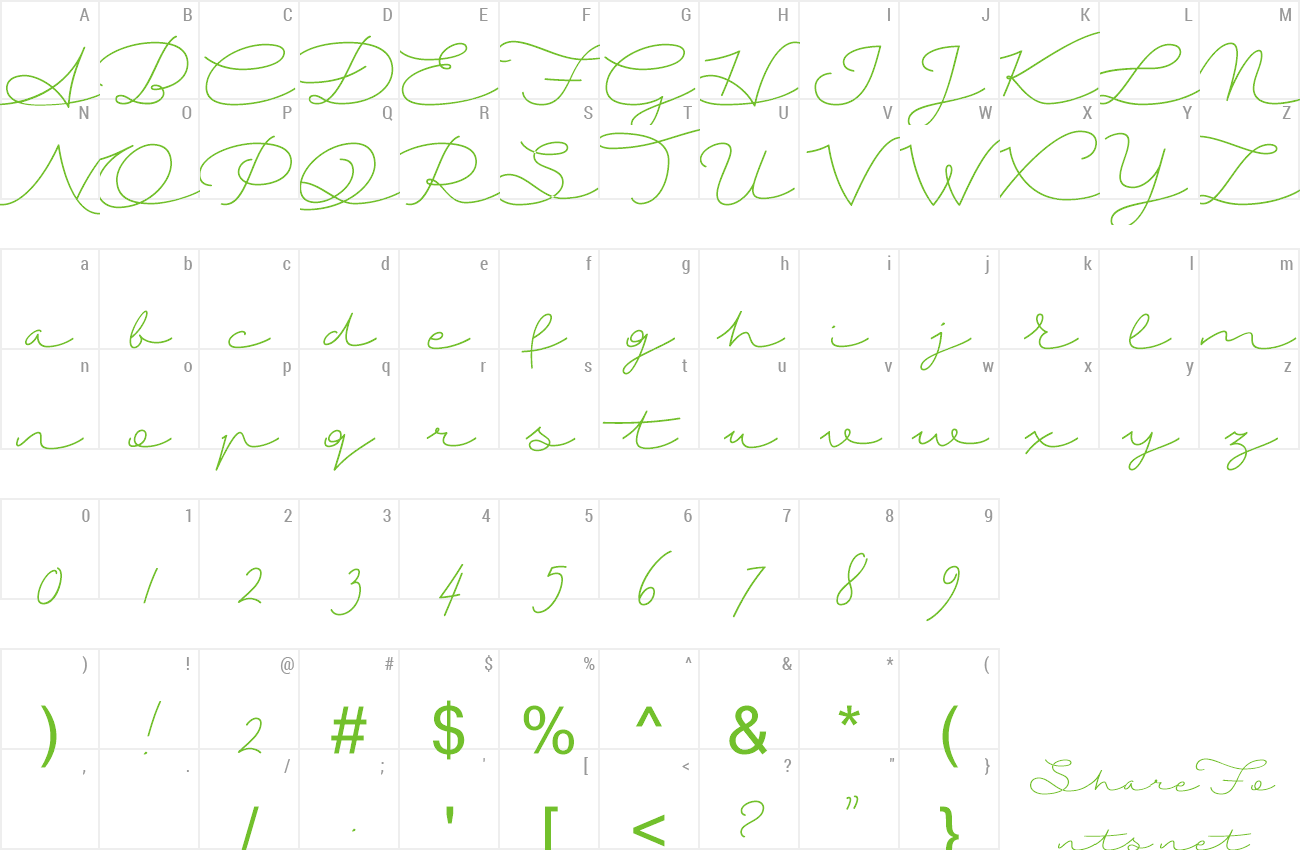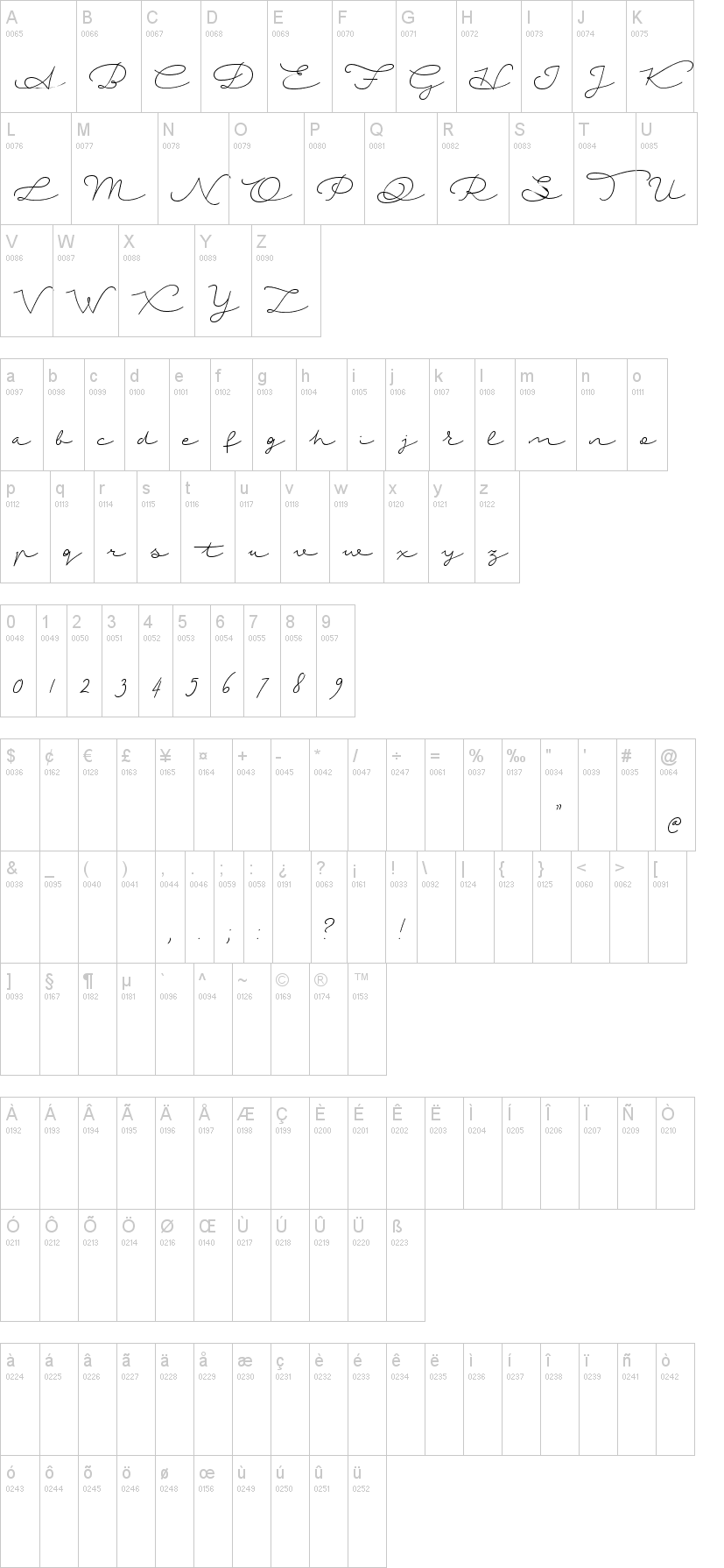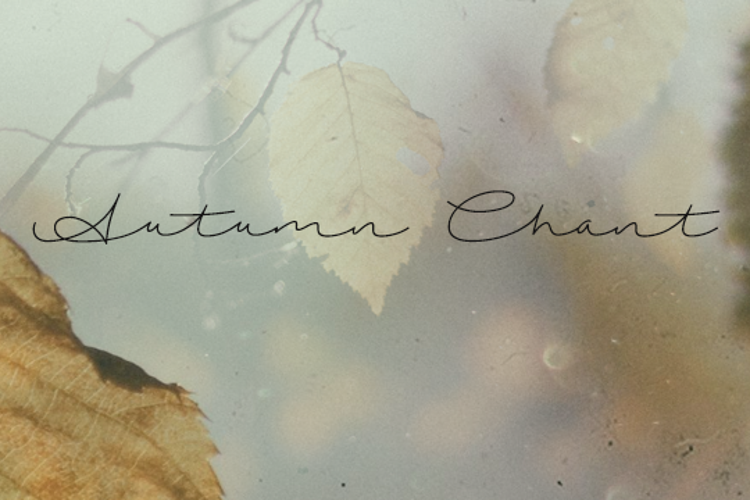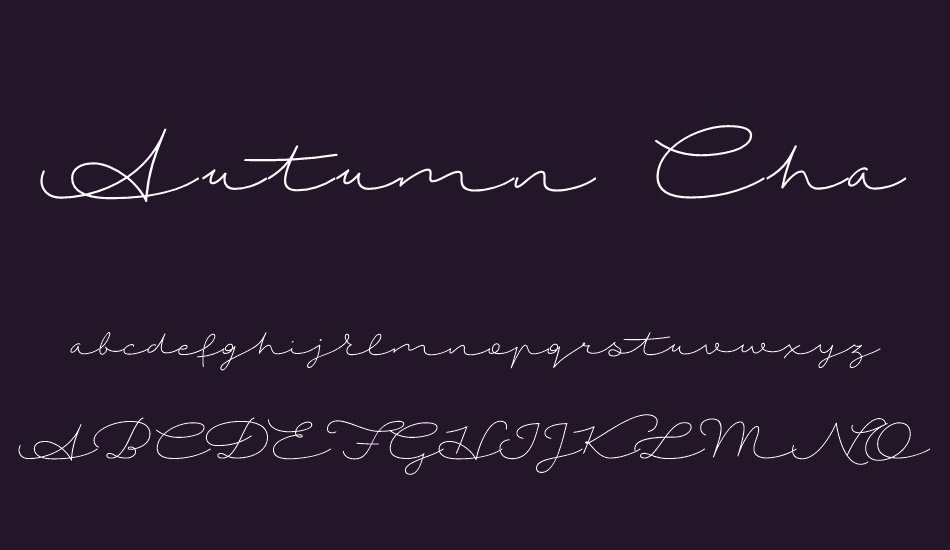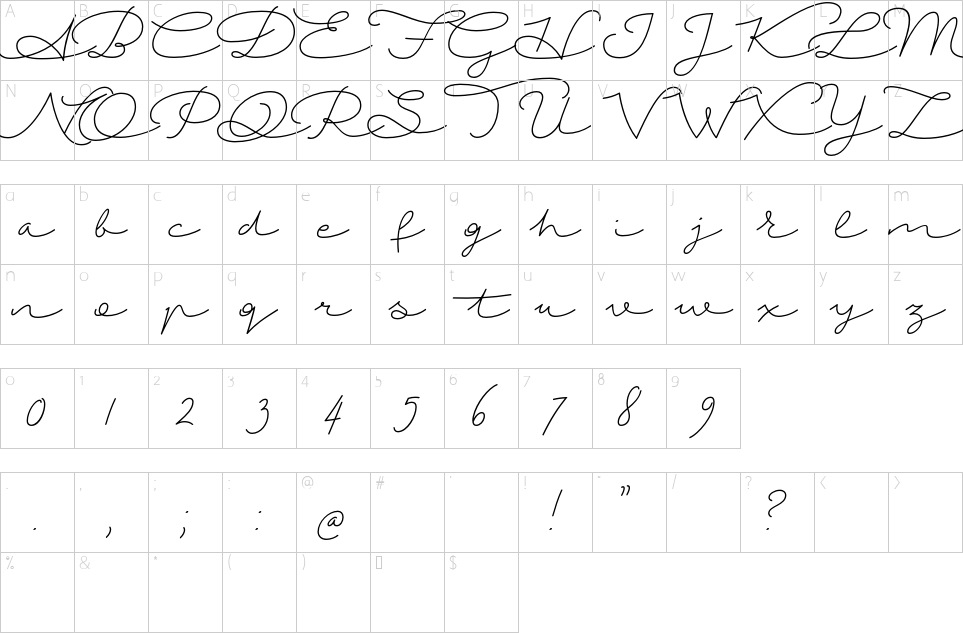
Autumn Chant Font
Autumn Chant Font - This font is free for personal use and no commercial. The autumn chant font has been downloaded 63,856 times. Web autumn chant font by roland huse design updated jul 26, 2019 cursive regular style postscript 74 glyphs 71 characters collect share designed by. Web autumn chant is a casual handwritten script. Web autumn chant is a casual and cool styled handwritten font that was created and released by roland hüse. Web download the autumn chant font by runes & fonts. Free for personal use only. For full version and/or commercial use please donate and/or contact me via.
The autumn chant font has been downloaded 63,856 times. For full version and/or commercial use please donate and/or contact me via. Web autumn chant font by roland huse design updated jul 26, 2019 cursive regular style postscript 74 glyphs 71 characters collect share designed by. This font is free for personal use and no commercial. Web autumn chant is a casual and cool styled handwritten font that was created and released by roland hüse. Web autumn chant is a casual handwritten script. Free for personal use only. Web download the autumn chant font by runes & fonts.
Web download the autumn chant font by runes & fonts. The autumn chant font has been downloaded 63,856 times. This font is free for personal use and no commercial. Web autumn chant is a casual handwritten script. Web autumn chant is a casual and cool styled handwritten font that was created and released by roland hüse. Free for personal use only. For full version and/or commercial use please donate and/or contact me via. Web autumn chant font by roland huse design updated jul 26, 2019 cursive regular style postscript 74 glyphs 71 characters collect share designed by.
This font is free for personal use and no commercial. The autumn chant font has been downloaded 63,856 times. Web autumn chant is a casual handwritten script. Web autumn chant font by roland huse design updated jul 26, 2019 cursive regular style postscript 74 glyphs 71 characters collect share designed by. Web download the autumn chant font by runes &.
Web download the autumn chant font by runes & fonts. This font is free for personal use and no commercial. Free for personal use only. Web autumn chant is a casual handwritten script. Web autumn chant font by roland huse design updated jul 26, 2019 cursive regular style postscript 74 glyphs 71 characters collect share designed by.
Web autumn chant is a casual handwritten script. Web download the autumn chant font by runes & fonts. This font is free for personal use and no commercial. The autumn chant font has been downloaded 63,856 times. Web autumn chant is a casual and cool styled handwritten font that was created and released by roland hüse.
Autumn Chant Schriftart
Web autumn chant is a casual handwritten script. For full version and/or commercial use please donate and/or contact me via. Web autumn chant is a casual and cool styled handwritten font that was created and released by roland hüse. The autumn chant font has been downloaded 63,856 times. Web autumn chant font by roland huse design updated jul 26, 2019.
This font is free for personal use and no commercial. Web download the autumn chant font by runes & fonts. Web autumn chant font by roland huse design updated jul 26, 2019 cursive regular style postscript 74 glyphs 71 characters collect share designed by. Free for personal use only. Web autumn chant is a casual handwritten script.
The autumn chant font has been downloaded 63,856 times. Web download the autumn chant font by runes & fonts. Free for personal use only. Web autumn chant font by roland huse design updated jul 26, 2019 cursive regular style postscript 74 glyphs 71 characters collect share designed by. Web autumn chant is a casual and cool styled handwritten font that.
Autumn Chant Font 1001 Free Fonts
For full version and/or commercial use please donate and/or contact me via. Web download the autumn chant font by runes & fonts. This font is free for personal use and no commercial. Free for personal use only. Web autumn chant font by roland huse design updated jul 26, 2019 cursive regular style postscript 74 glyphs 71 characters collect share designed.
Autumn Chant Font Download Free for Desktop & Webfont
For full version and/or commercial use please donate and/or contact me via. Web autumn chant is a casual handwritten script. This font is free for personal use and no commercial. The autumn chant font has been downloaded 63,856 times. Web download the autumn chant font by runes & fonts.
Autumn Chant Font Roland Huse Design FontSpace
Free for personal use only. Web autumn chant is a casual and cool styled handwritten font that was created and released by roland hüse. Web autumn chant is a casual handwritten script. This font is free for personal use and no commercial. For full version and/or commercial use please donate and/or contact me via.
Autumn Chant free font
Web autumn chant font by roland huse design updated jul 26, 2019 cursive regular style postscript 74 glyphs 71 characters collect share designed by. For full version and/or commercial use please donate and/or contact me via. This font is free for personal use and no commercial. Web download the autumn chant font by runes & fonts. The autumn chant font.